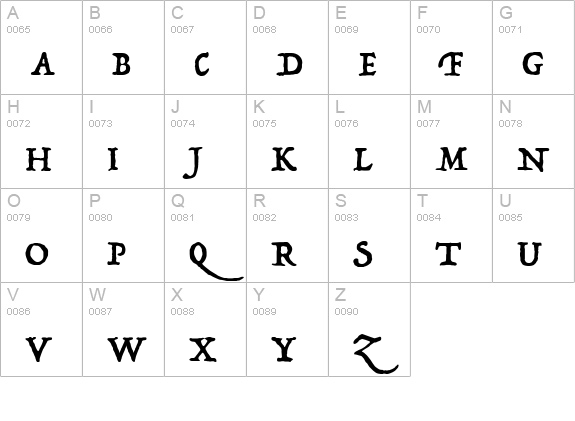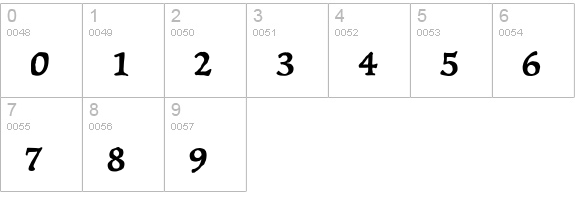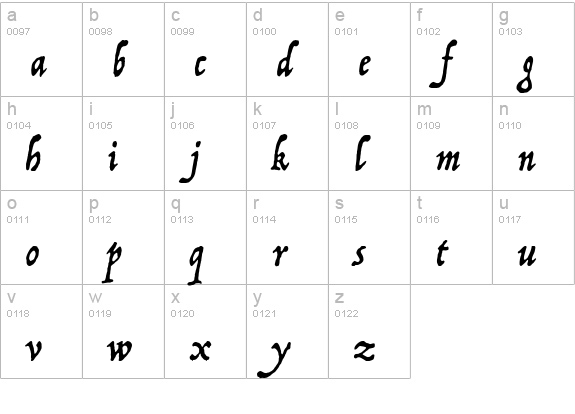
P22 Operina Romano Font Details
P22 Operina Romano is a stunning and elegant font that captures the essence of Italian Renaissance calligraphy. With its intricate details and graceful curves, this typeface exudes a sense of sophistication and timeless beauty. The elaborate letterforms of P22 Operina Romano are reminiscent of the exquisite penmanship of ancient scribes, making it perfect for adding a touch of refinement to any design project. What sets P22 Operina Romano apart is not only its exquisite design, but also the fact that it is available for free download at FontsMarket.com. This means that you can easily access this gorgeous font and use it in your projects without any cost. Whether you are working on a branding project, invitation design, or any other creative endeavor, P22 Operina Romano is sure to elevate your work with its classic charm and artistic flair. Download this magnificent font today and bring a touch of Renaissance beauty to your designs.